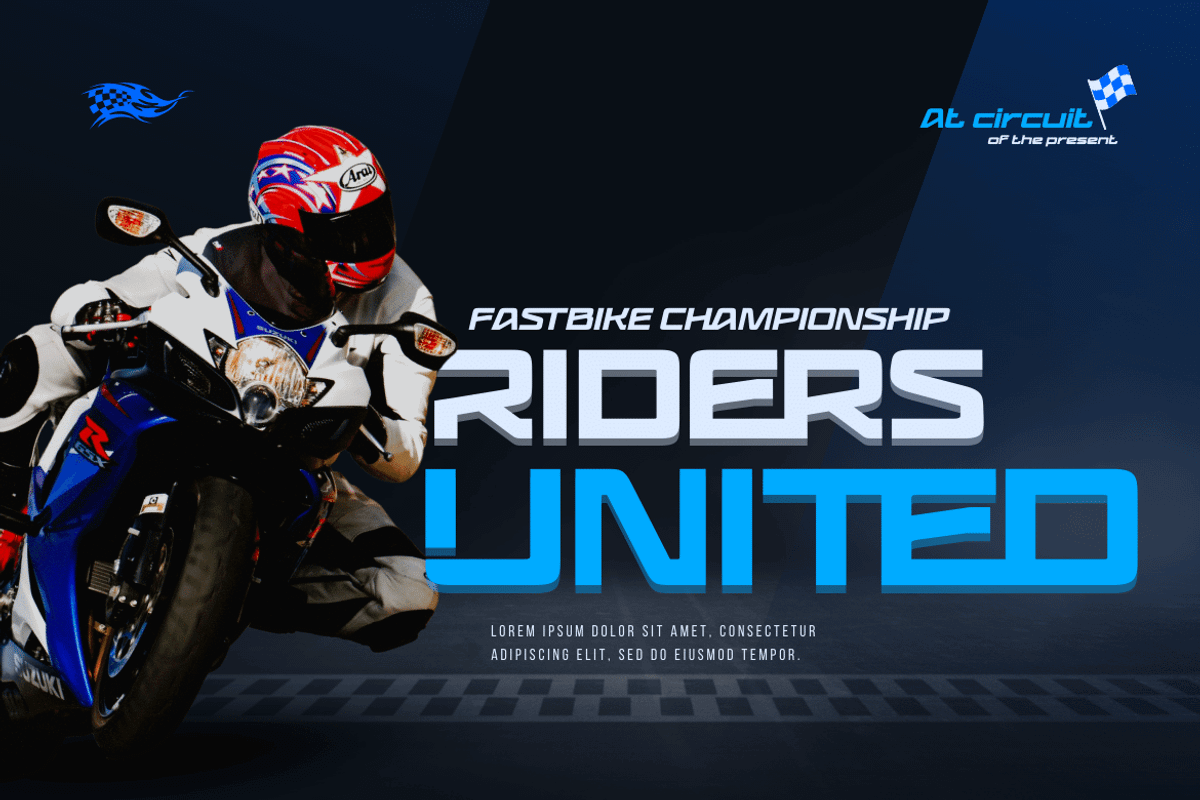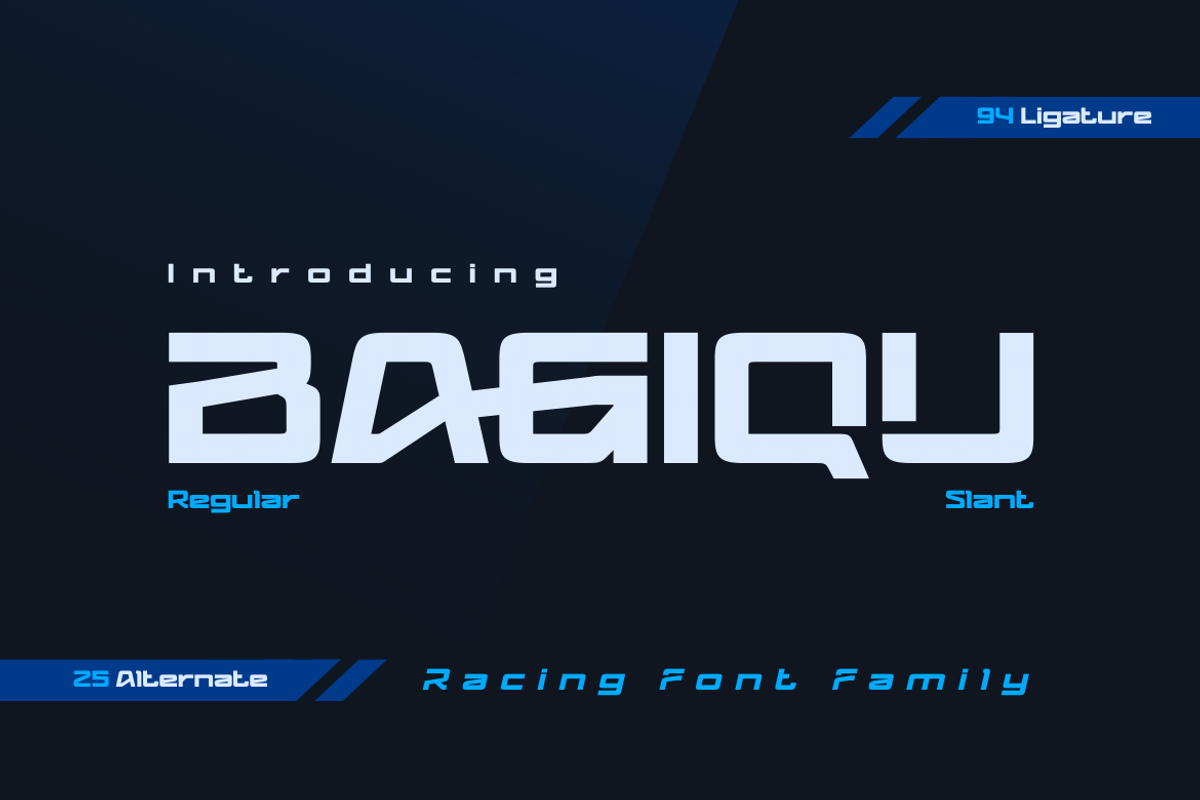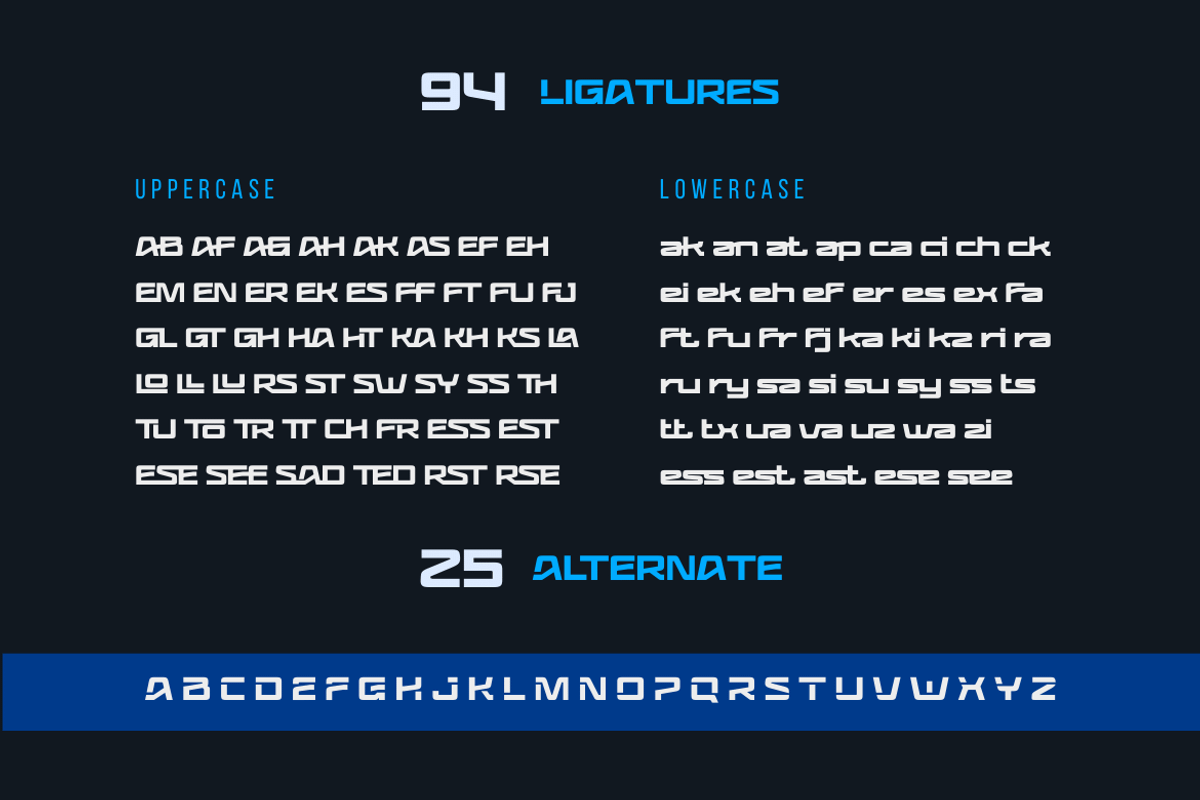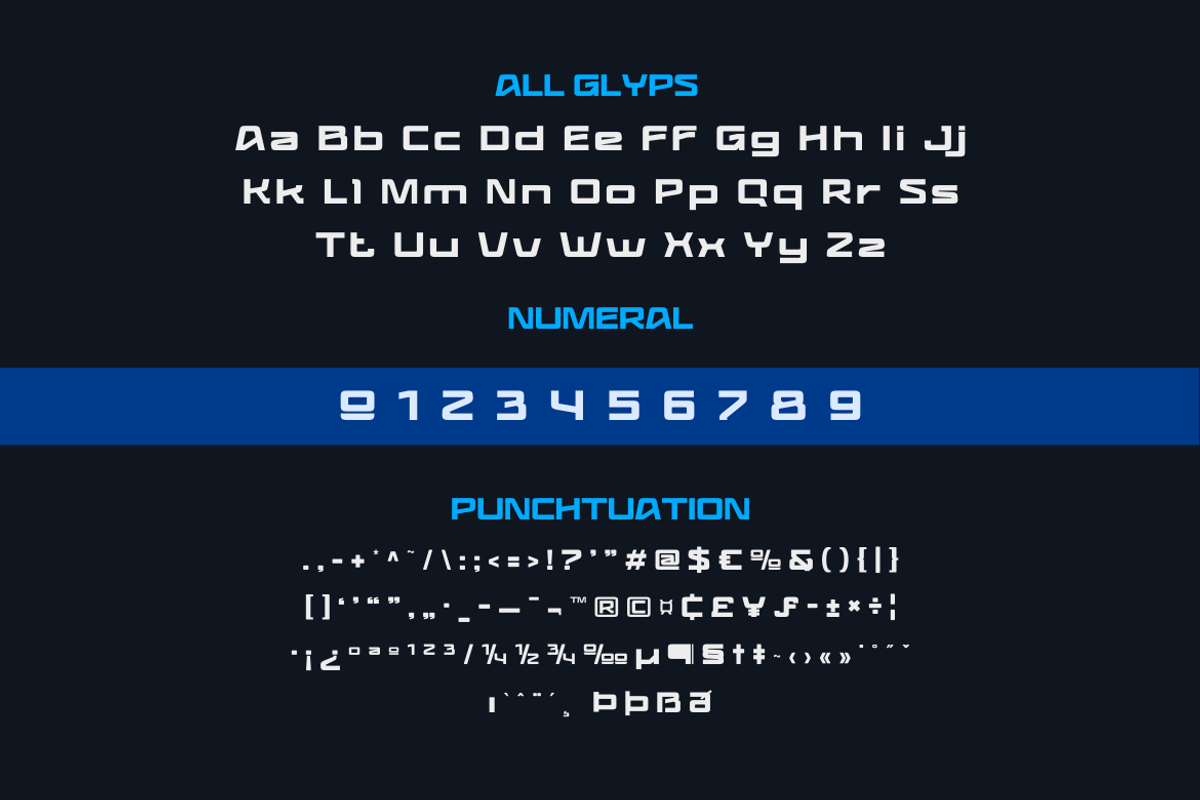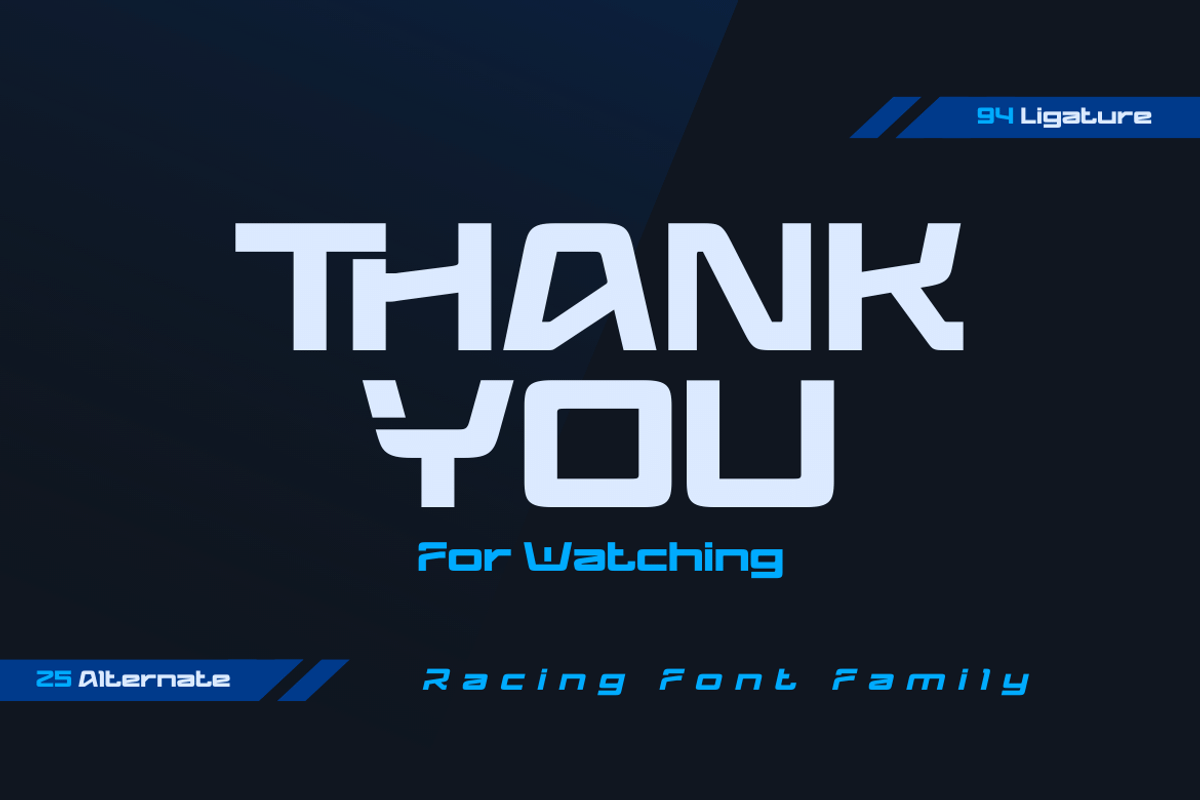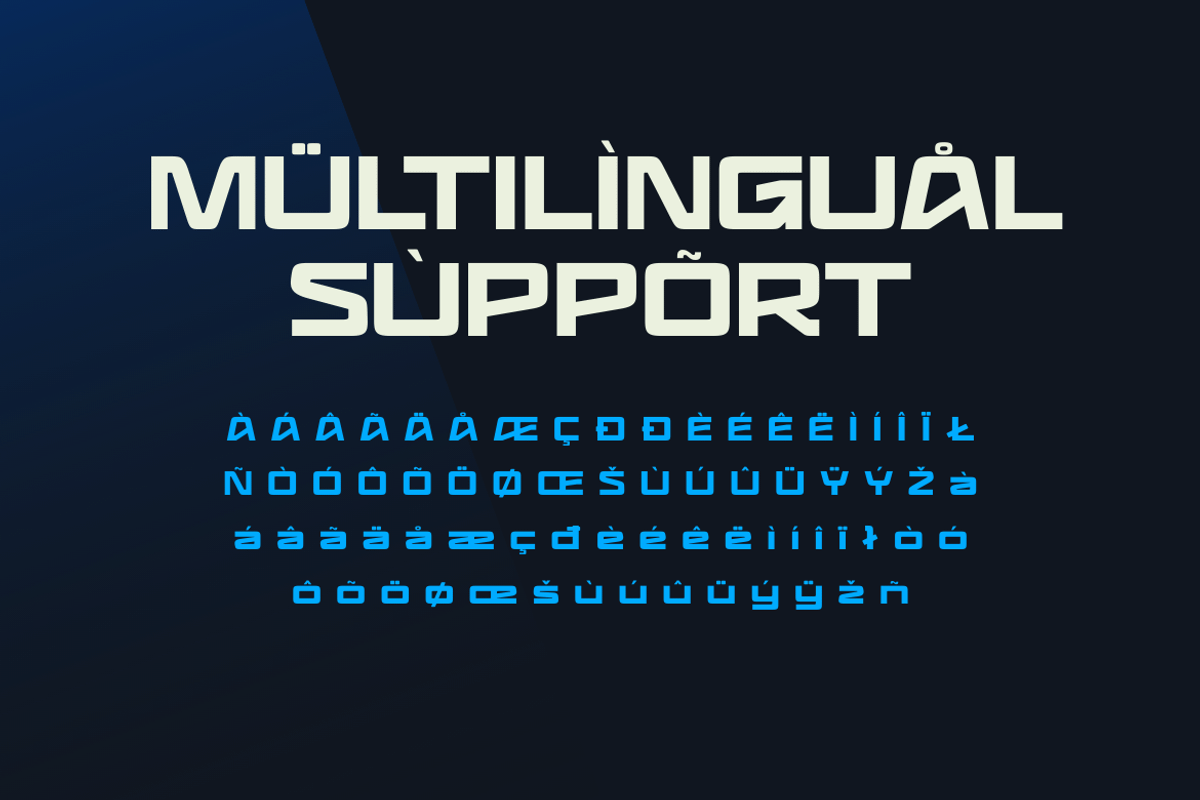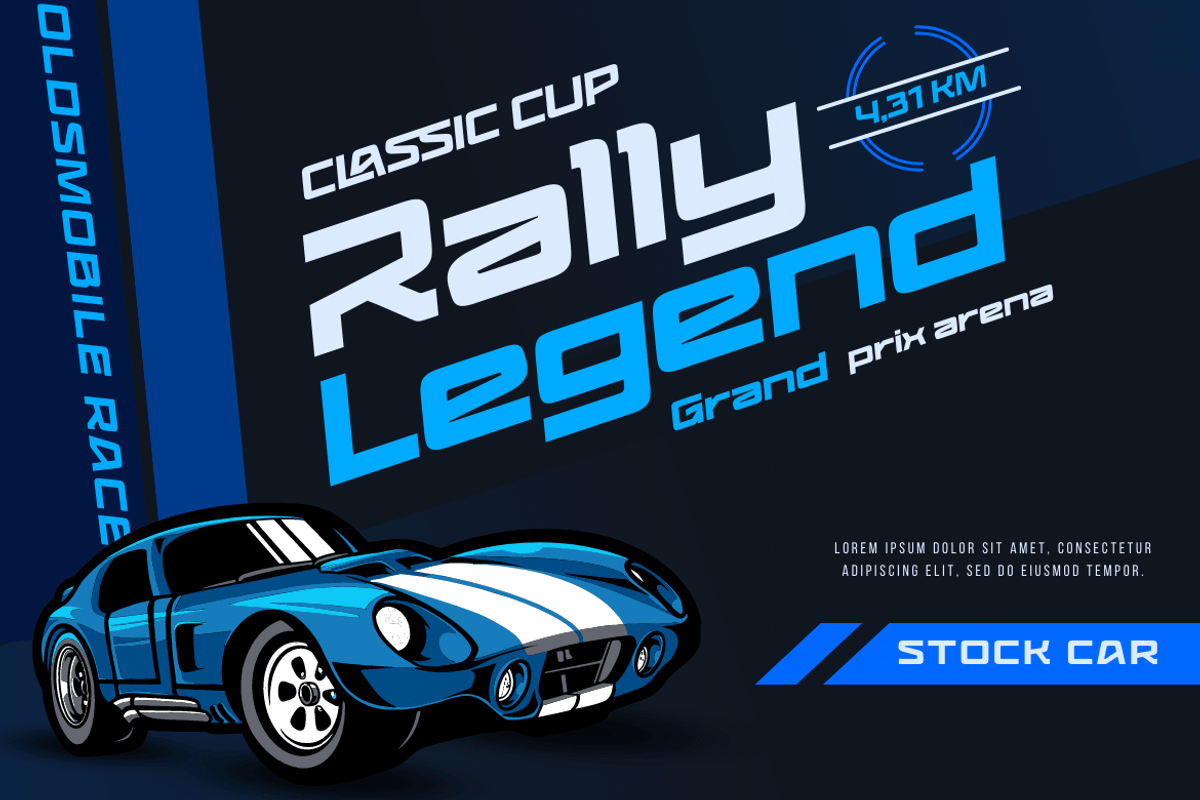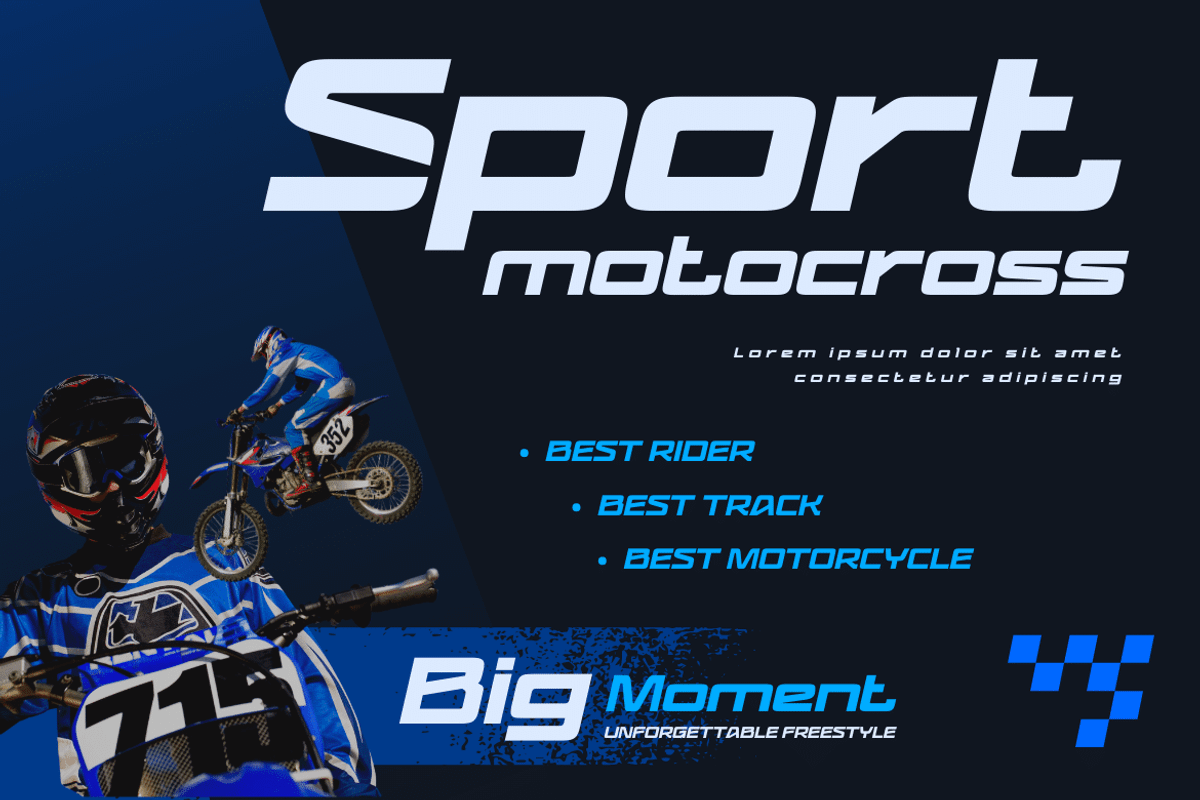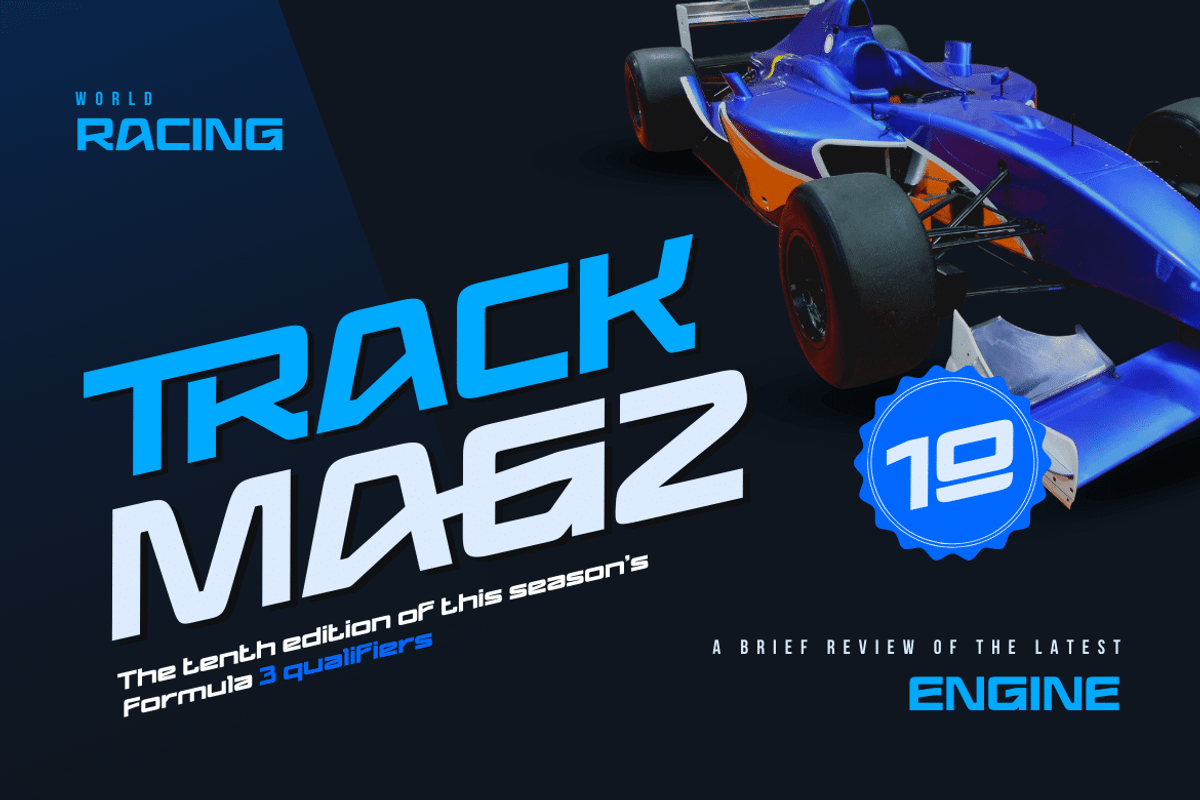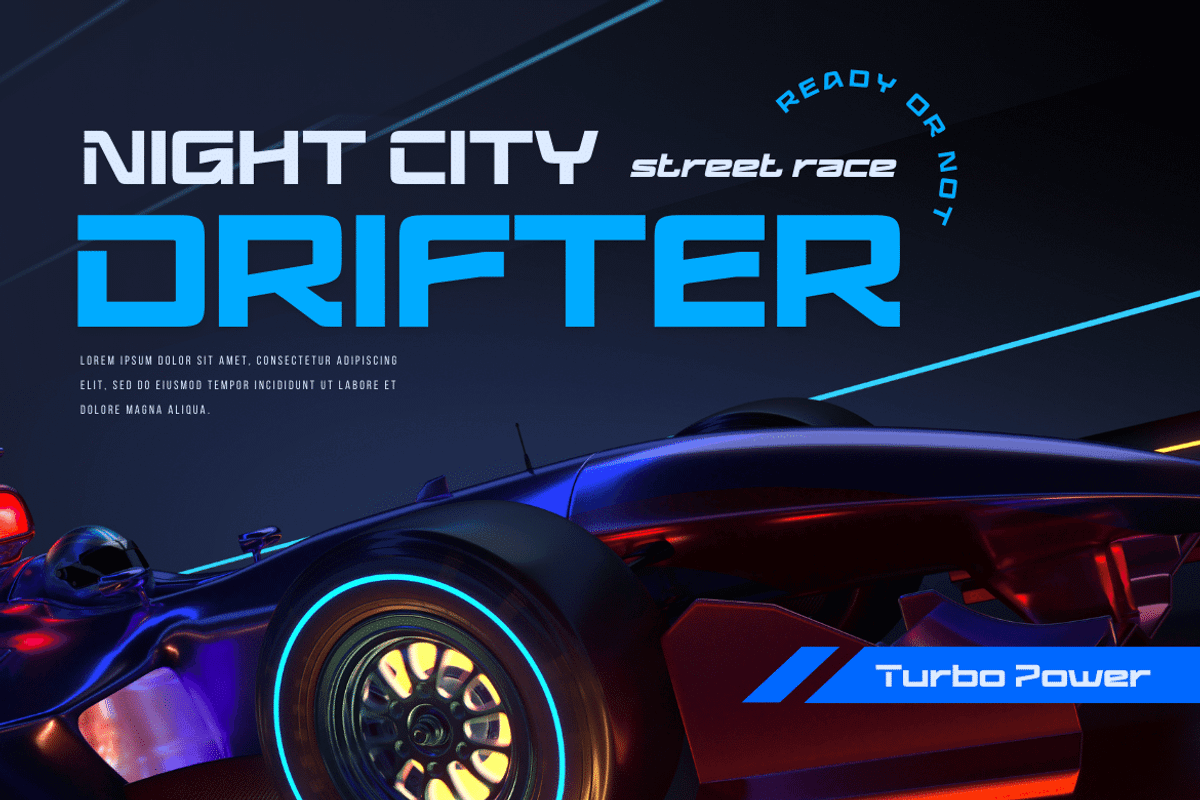
Bagiqu | Athletic Font
Bagiqu is a sporty Sans Serif font. Designed for any purpose you can use it to create a stunning design. The Bagiqu font is ready for your big projects and for the best results of your work. This font is suitable for Logo Design, Poster Design, Signature Design, Branding, and More. You can also use it on social media like a logo etc. This font has 25 alternates and 94 ligatures for all letters and 2 styles, making it a versatile tool for creating originality for your various design needs. You Can Create Professional Quality Typography With These Fonts in Your Artwork or Use It For Personal Projects!